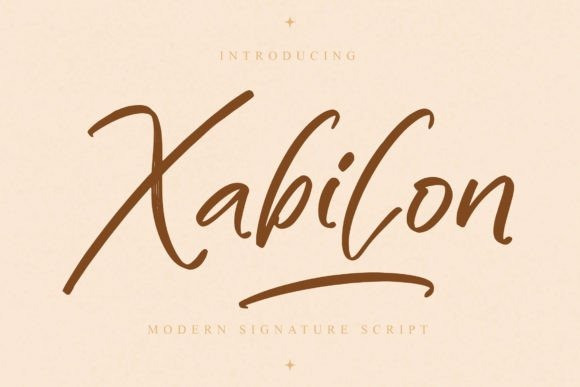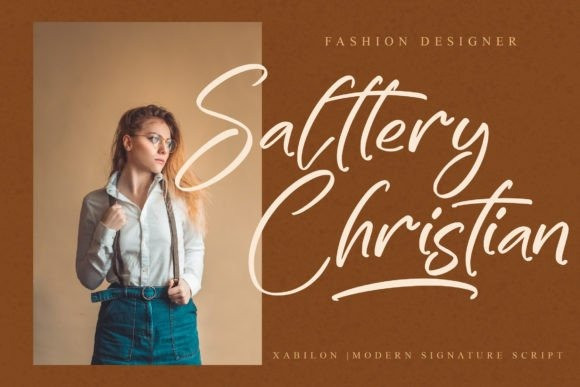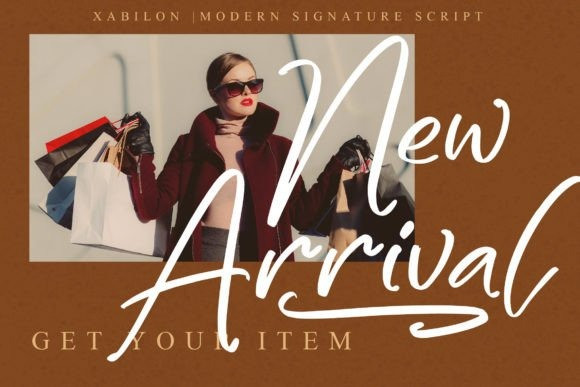
Xabilon Font
Xabilon – Modern Signature Script is suitable for any projects such as logos, branding projects, homeware designs, product packaging, mugs, quotes, posters, shopping bags, t-shirts, book covers, name cards, invitation cards, greeting cards, labels, photography, watermark, special events, and all your other lovely projects that need a beautiful script taste.